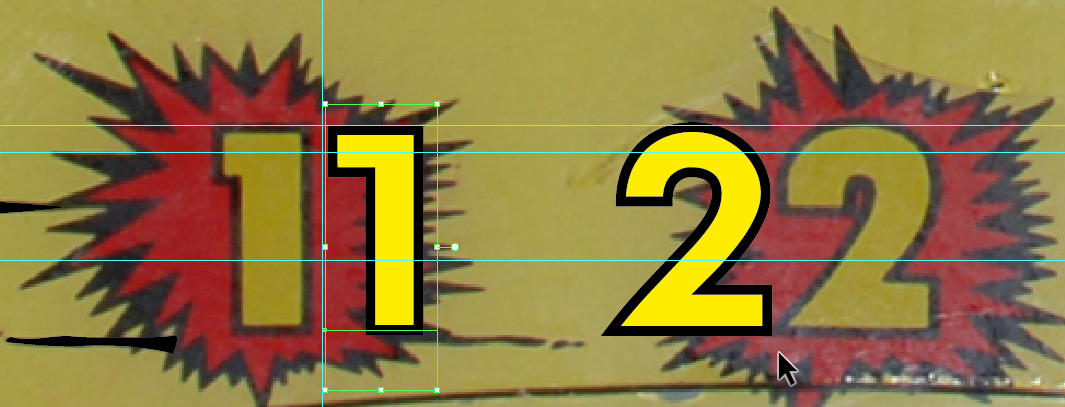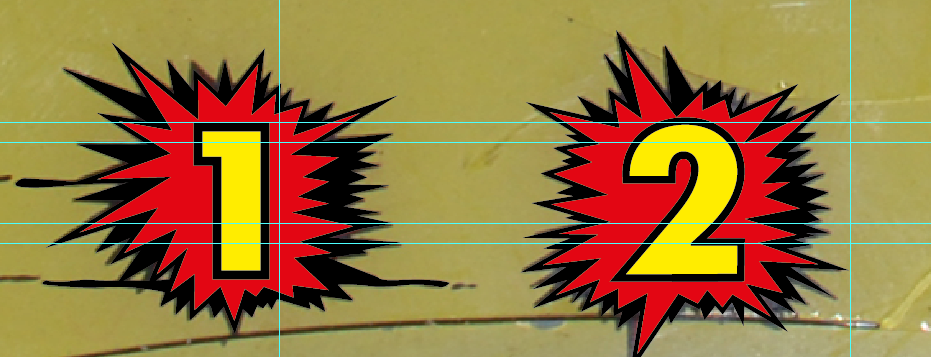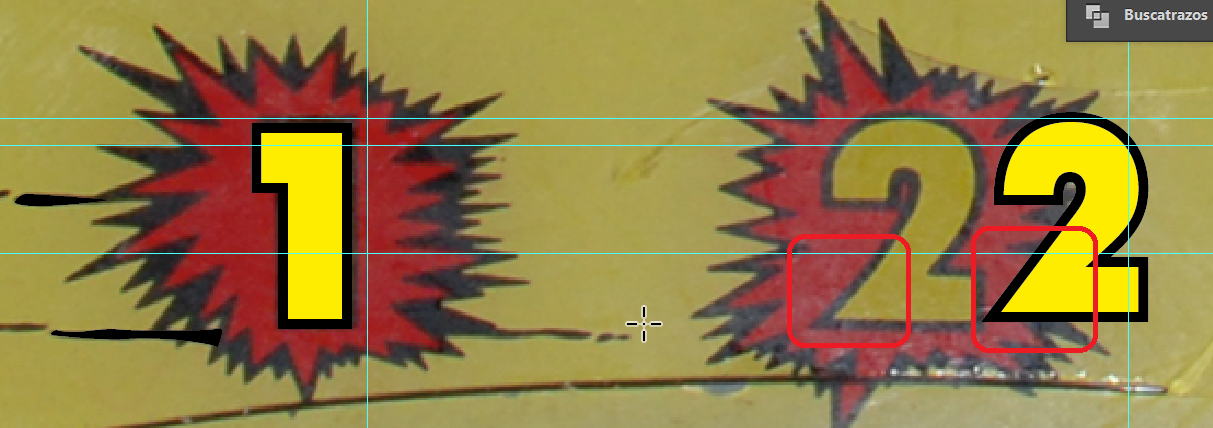
Is there anyone who can help me to find that font, please?
This is close:
This is twenty!
Does anyone know which is the name of this font? :
And this font do you know which can be?
Itβs very close to Futura Bold
Help needed finding this font. Any thoughts would be appreciated.
Hi Typehuile the font Future Bold isn,t exactly like the font of the picture look at:
I have test with the font :Futura XBlk BT.ttf it,s very similar but the part marked of red has a different curve
There are many variations of Futura and what one foundry calls bold is not the same as what another calls bold. Look at my example above. Plus, I only said it was very close.
This font which can be?